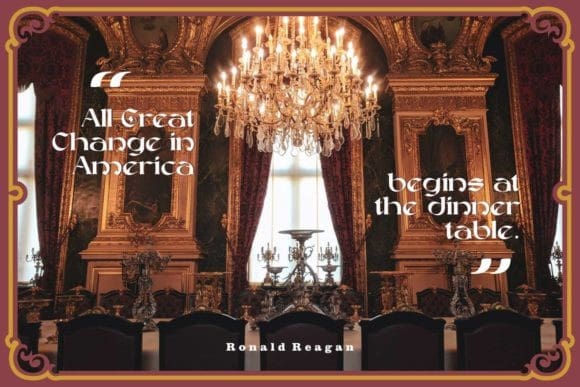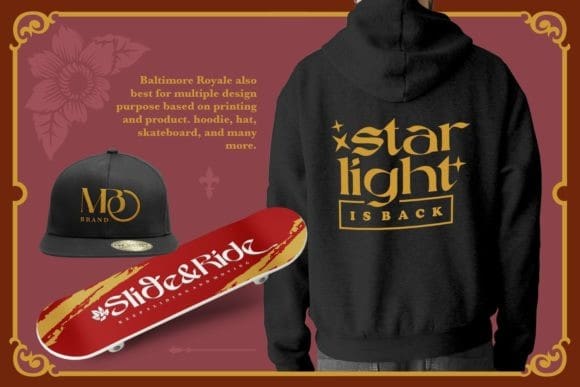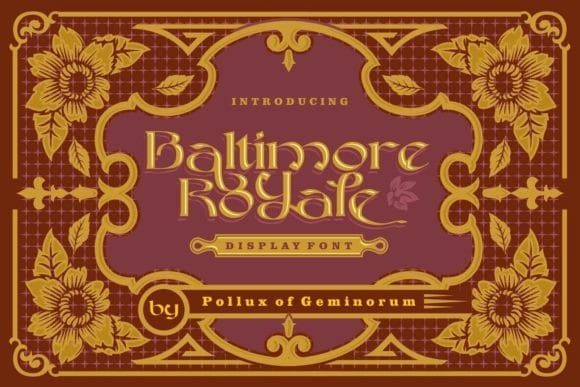
Baltimore Royale Font
Baltimore Royale Font is a distinct and vintage styled display font. This font reads as strong, confident, and dynamic and can add tons of stylish character to your designs.